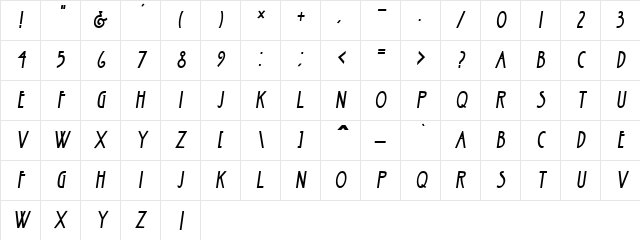
Niihau Oblique
Complete Niihau Oblique glyph index. Displaying only characters natively supported by Niihau Oblique font.
Design Context for Niihau
Niihau is a composed and adaptable typeface that performs quietly and consistently across a wide range of design contexts. The slanted form adds forward momentum and visual energy.
Pro Tip: Use Niihau for emphasis, pull quotes, and subheadings where its slanted energy can add rhythm to the layout.